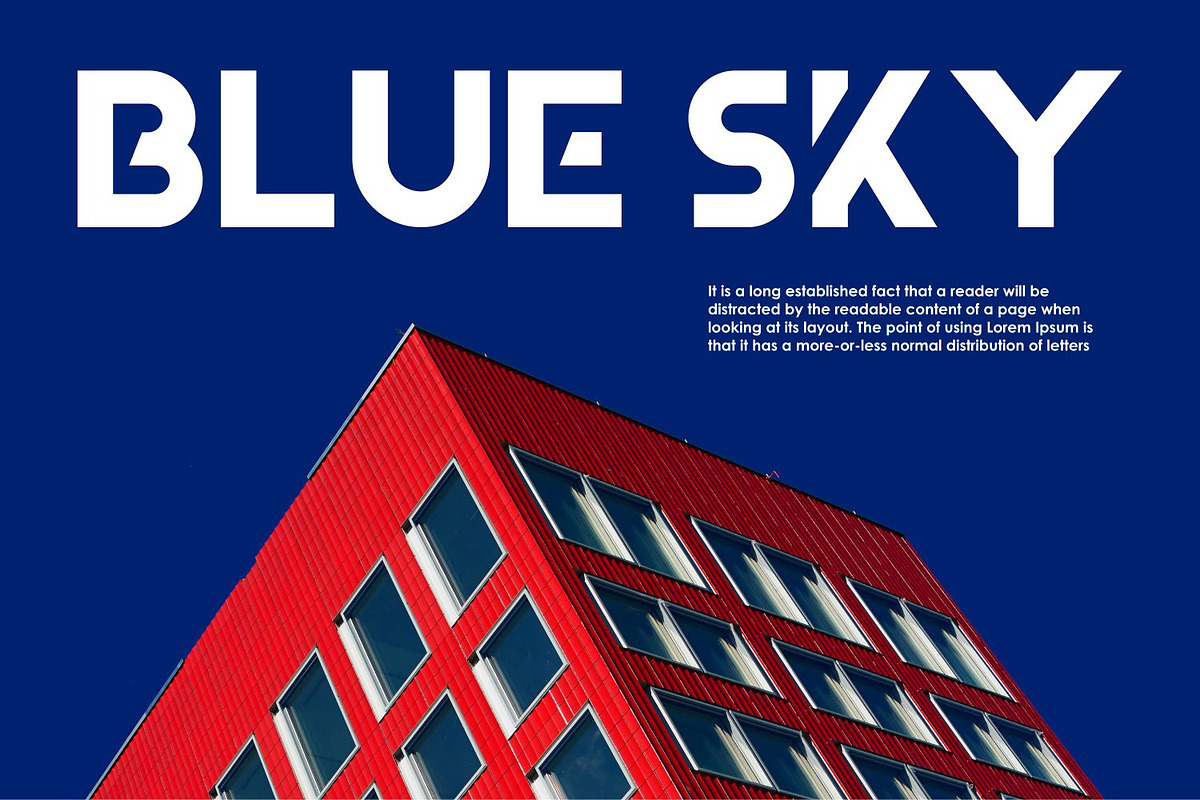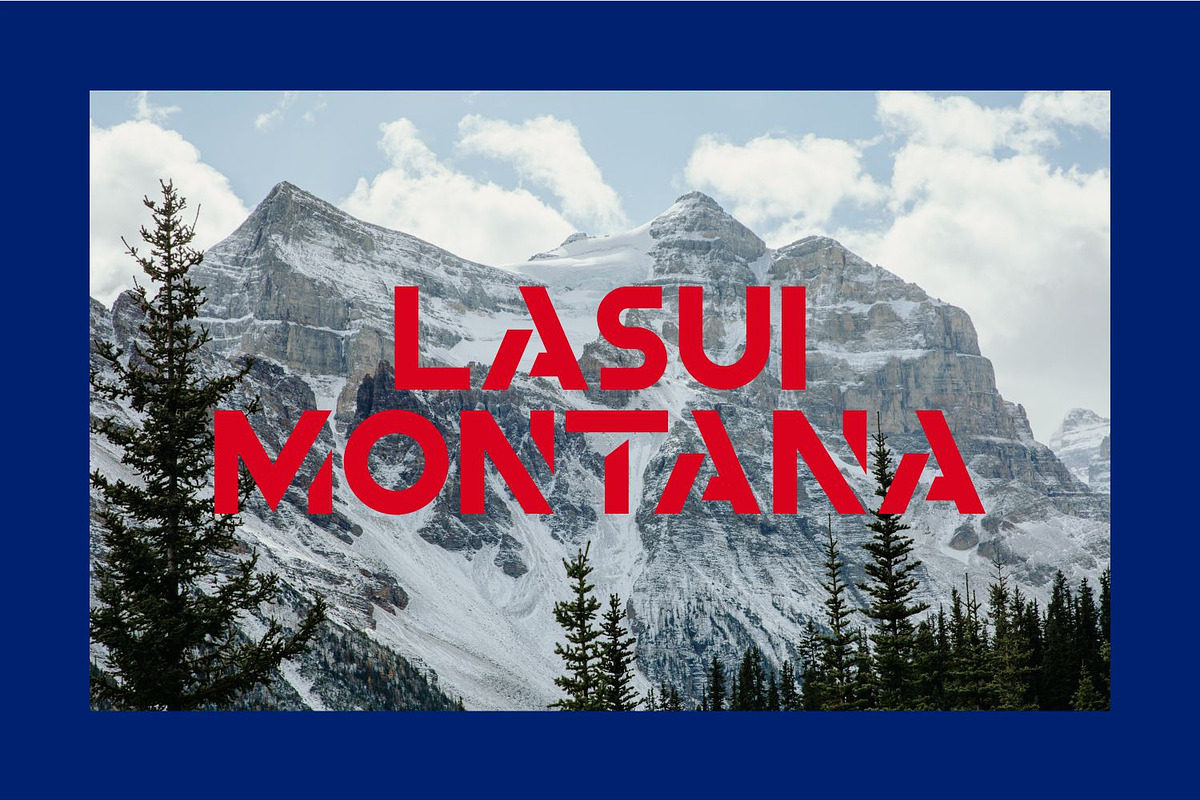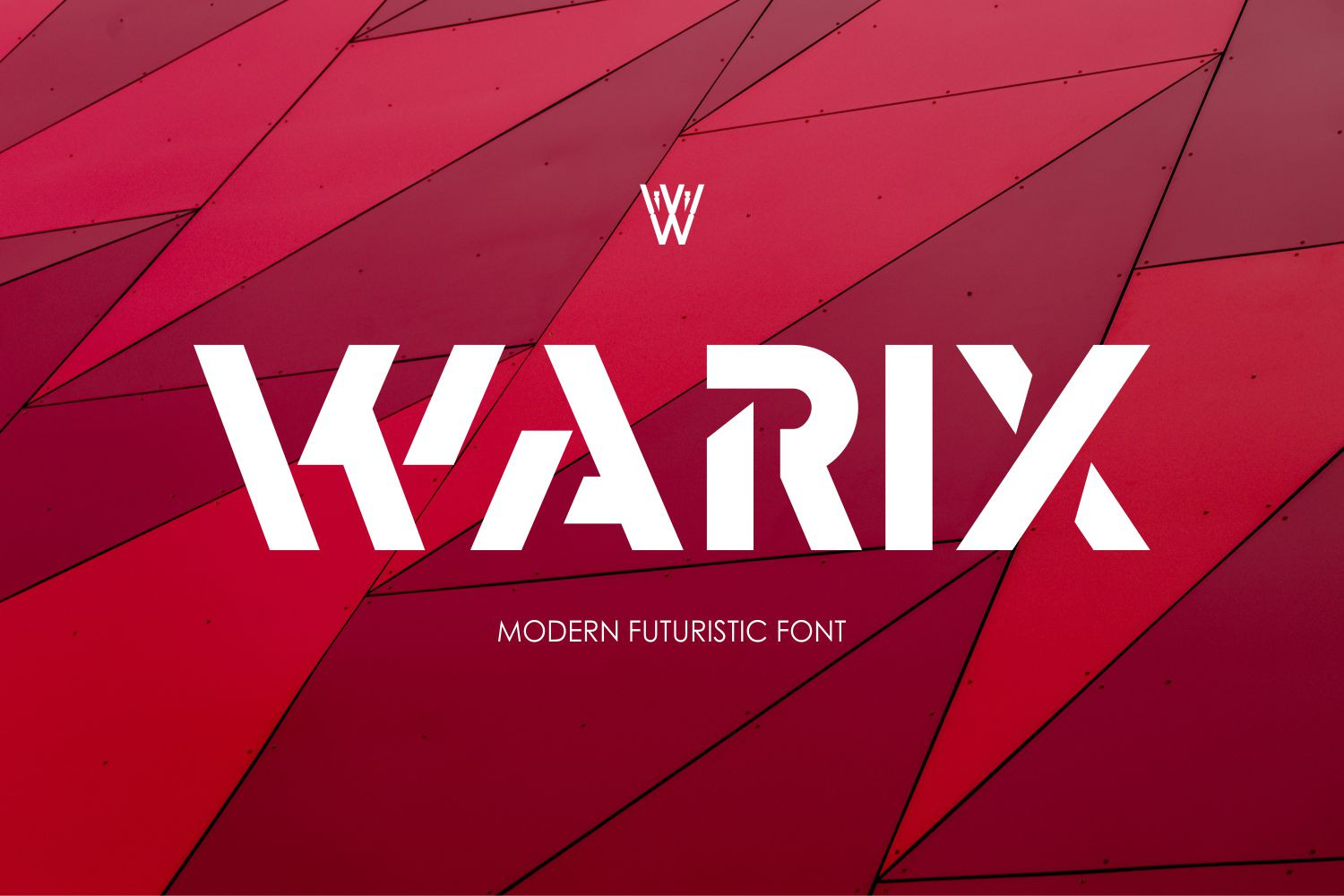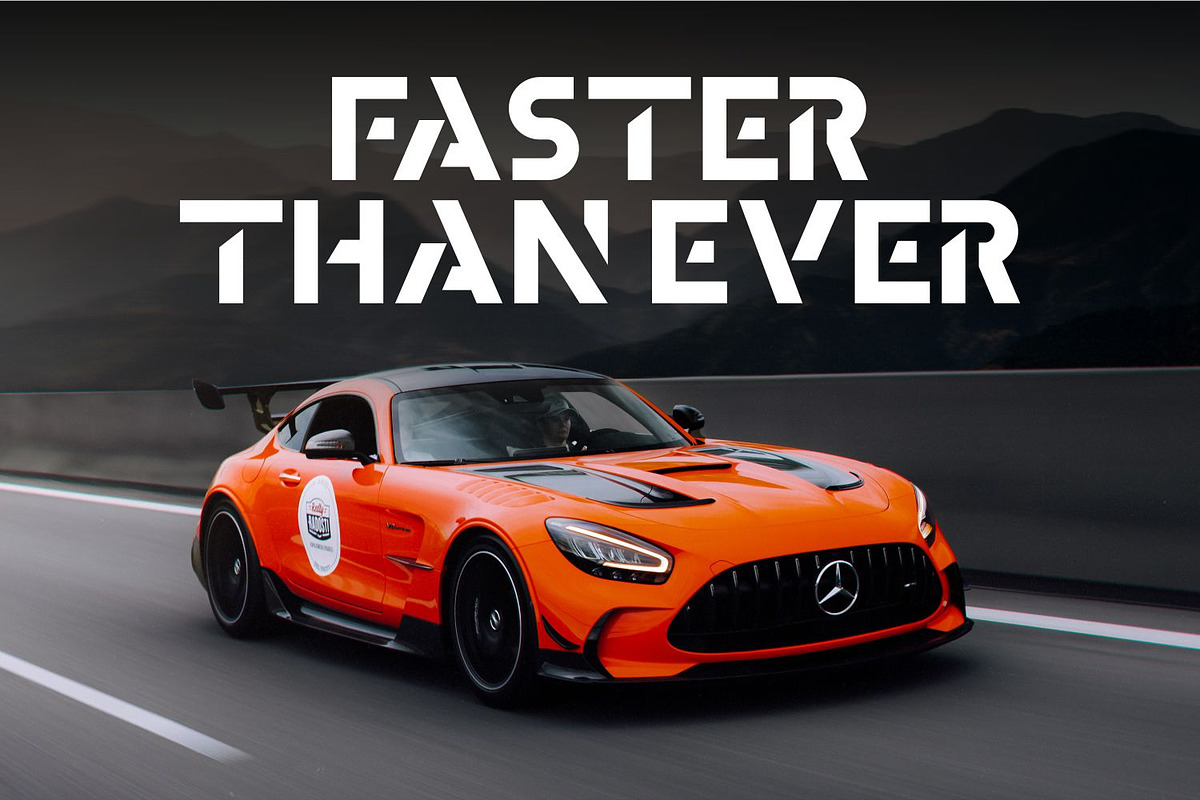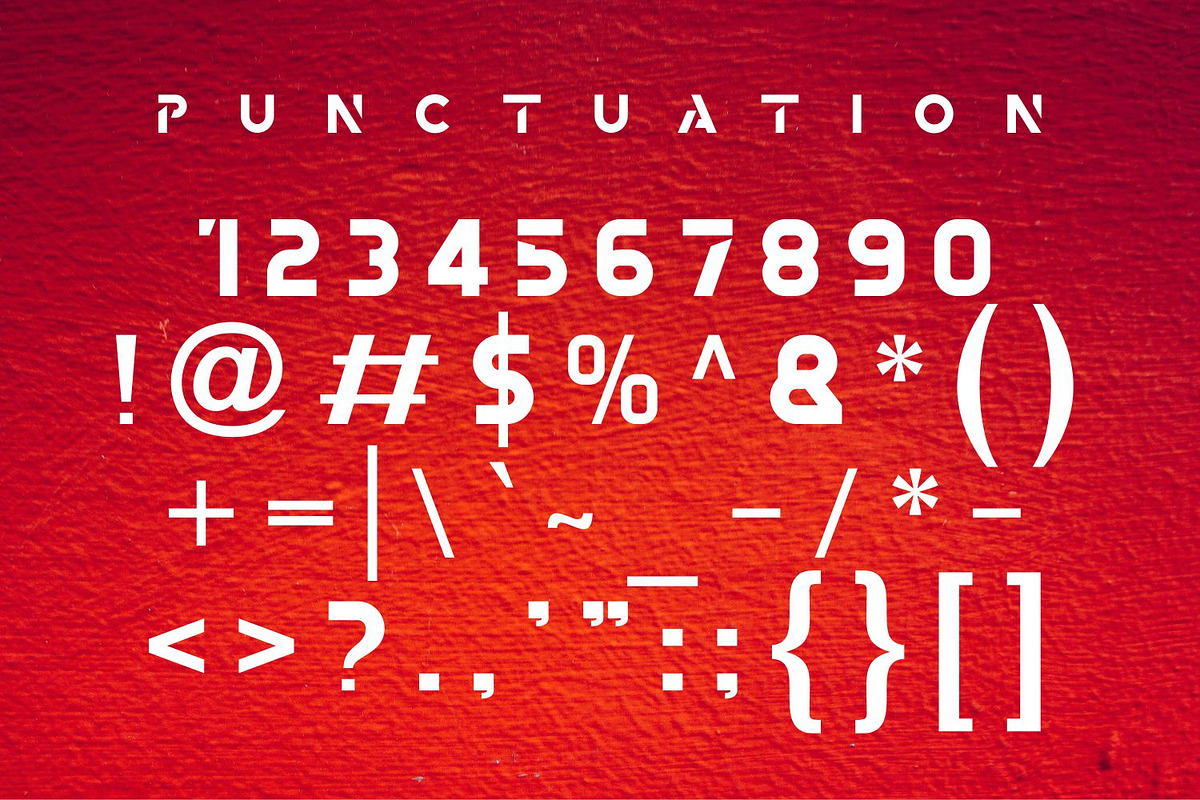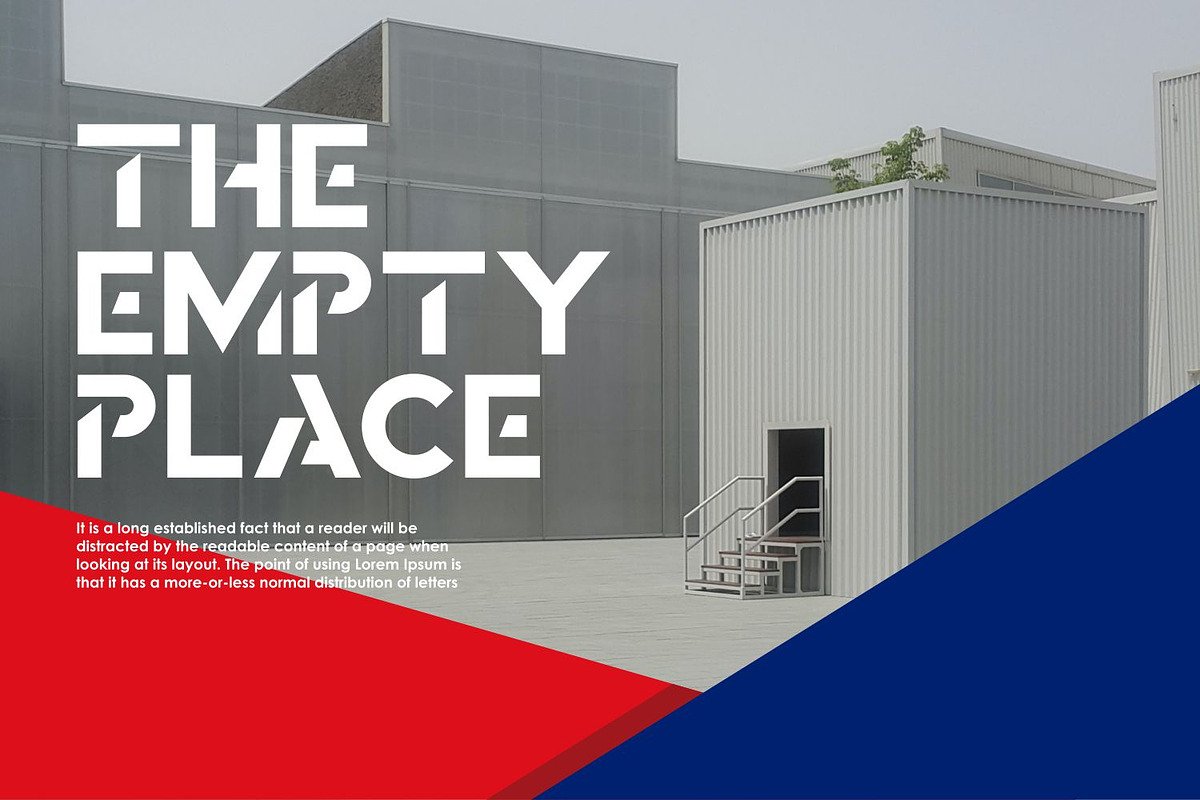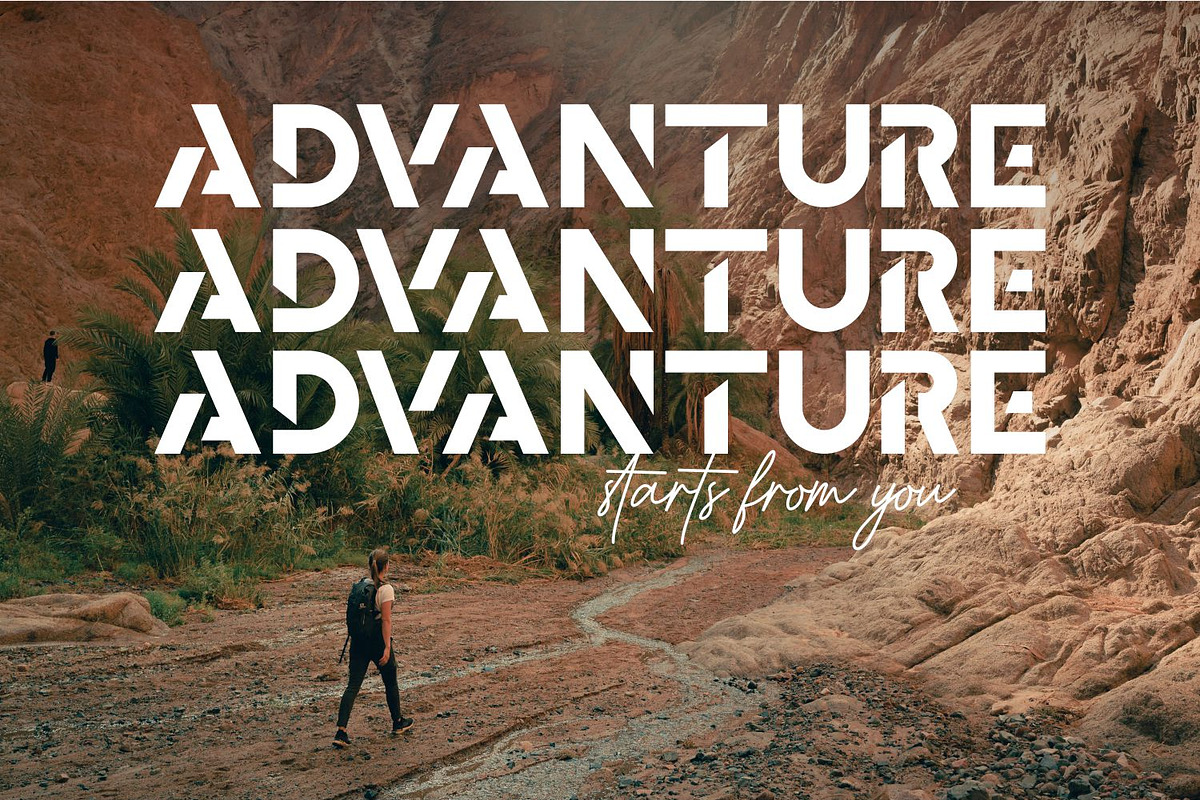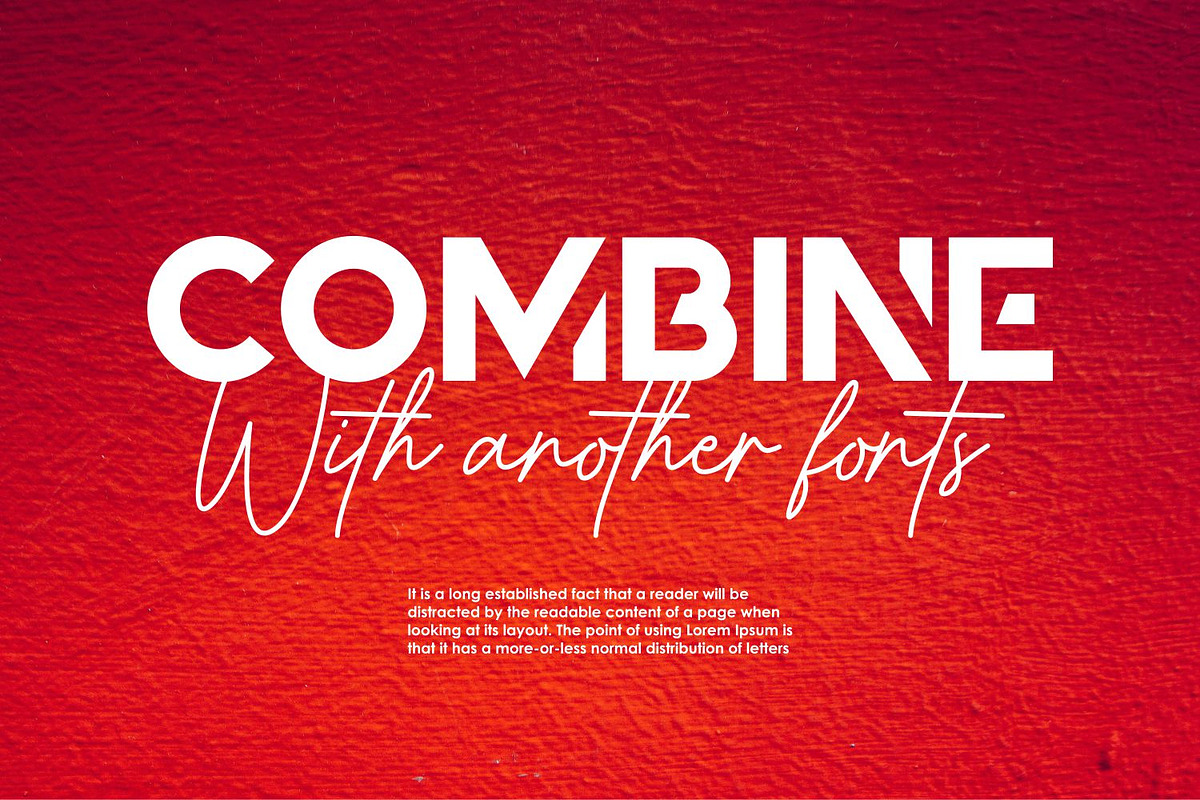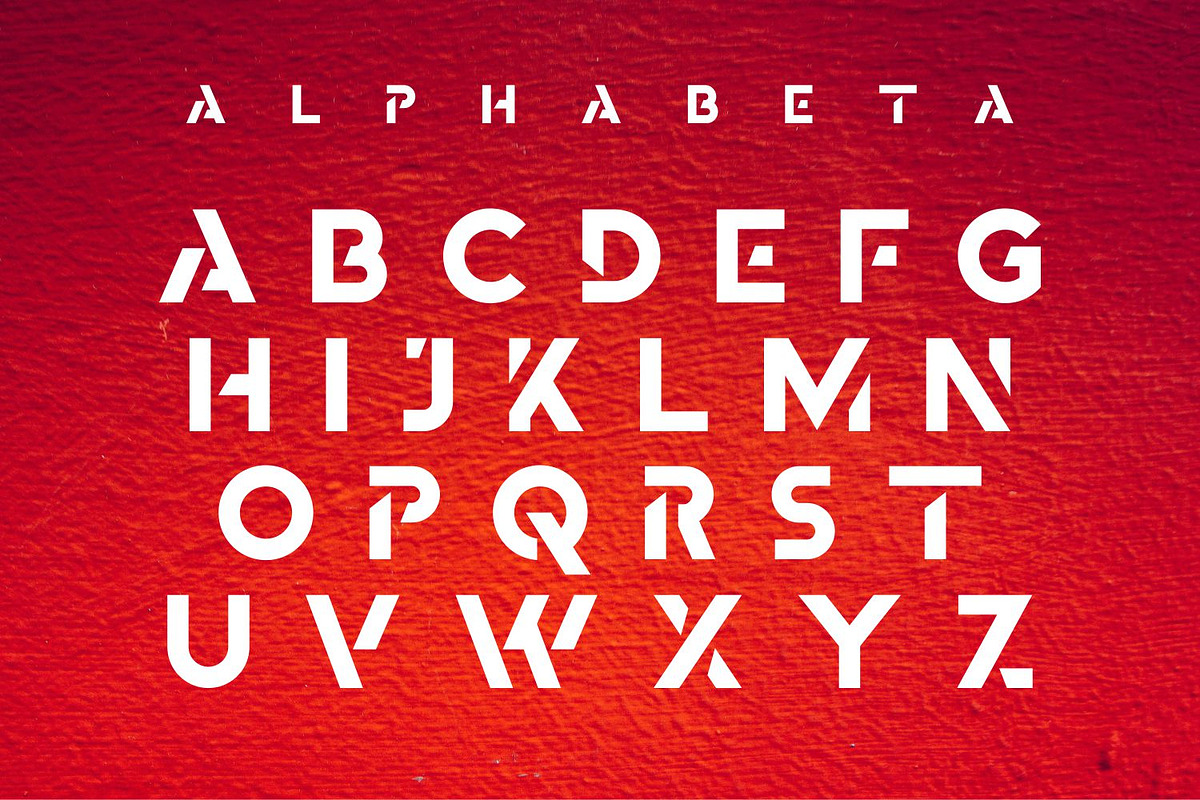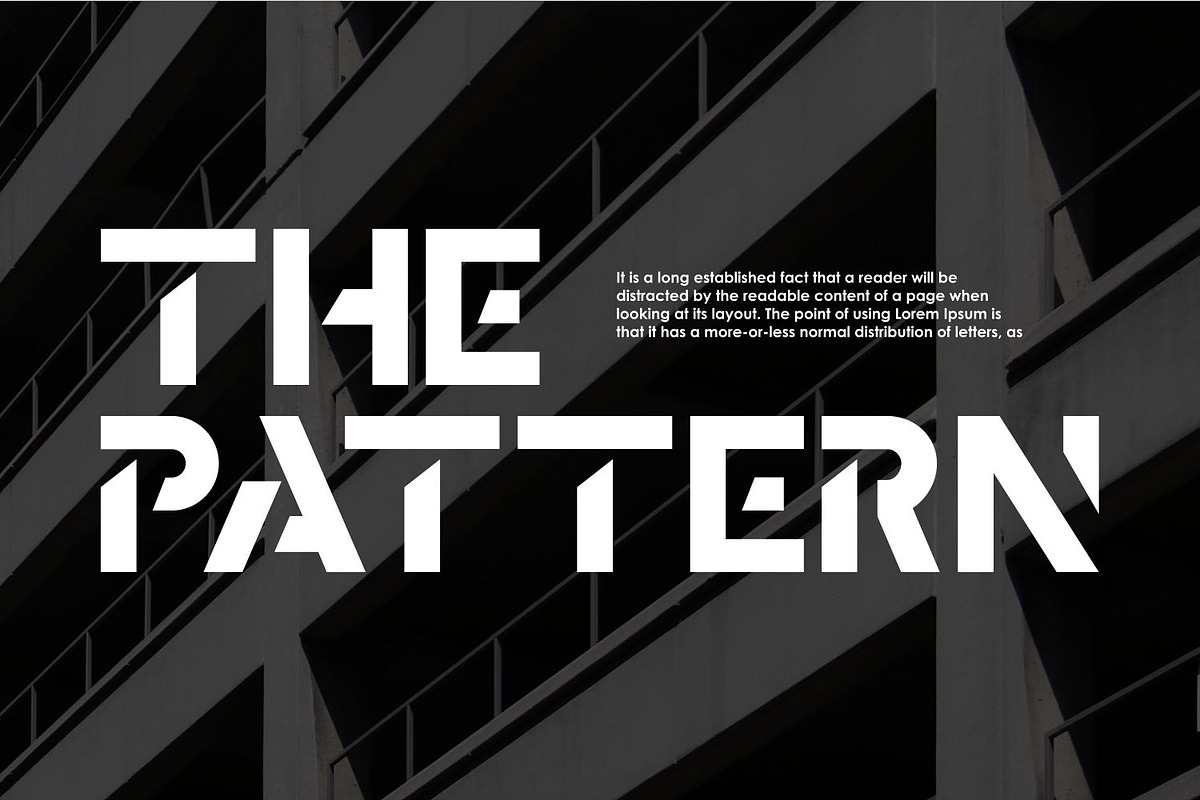
Warix Bold Futuristic Font
The Warix Font is a futuristic typeface that embodies innovation and modernity with its bold and sleek design. Inspired by cutting-edge technology and futuristic aesthetics, this font features sharp angles, geometric shapes, and a sense of dynamic movement. Whether you’re designing for sci-fi themes, tech startups, or futuristic branding, the Warix Font adds a touch of contemporary flair that captivates the viewer. Its minimalist design and versatility make it perfect for a wide range of digital and print applications. Embrace the future of design with the Warix Font.